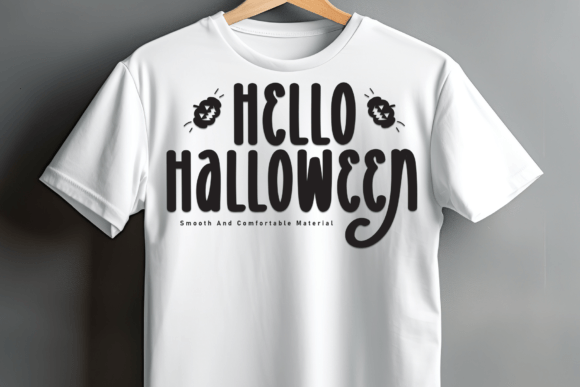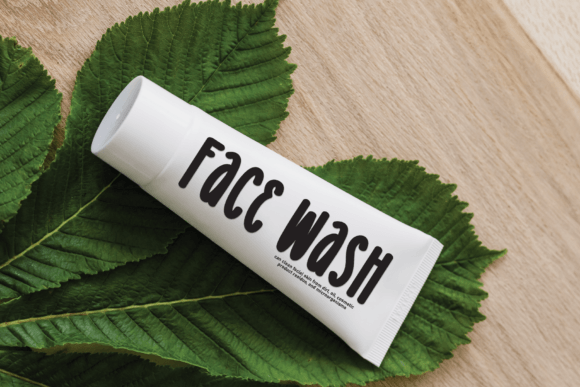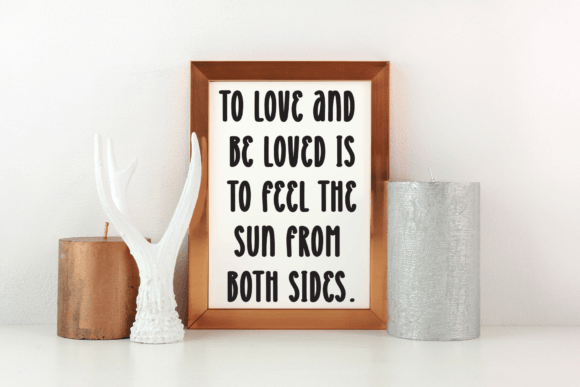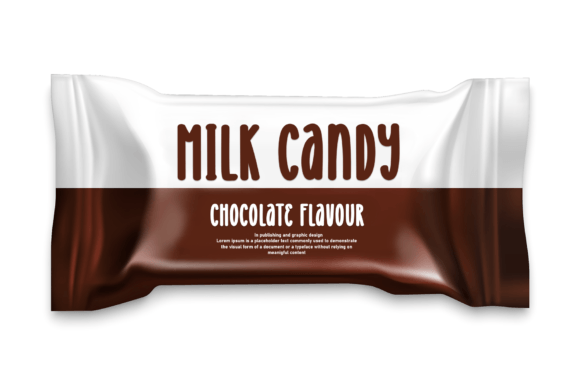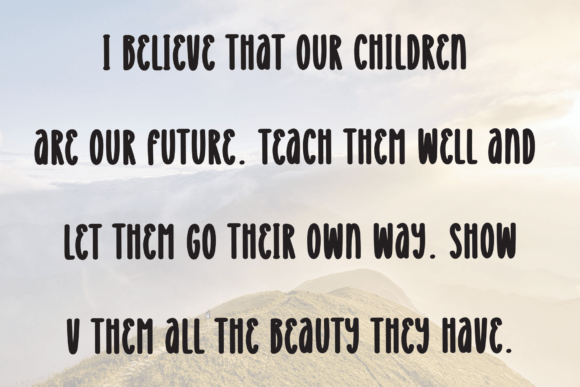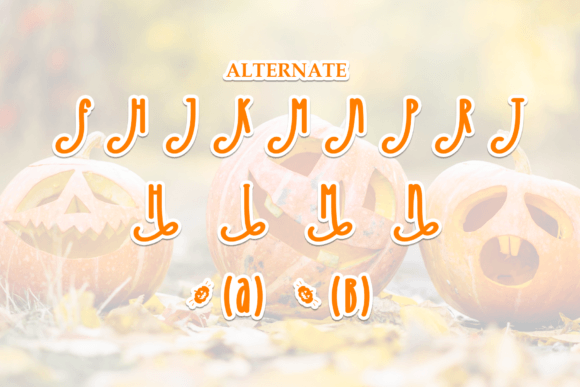
The Perfect Touch for Your Designs
Have you ever sat at your desk, staring at a blank page, trying to come up with the perfect design? The words won’t flow, the ideas won’t come, and you’re left feeling frustrated and stuck. But then, it happens – a spark of inspiration hits, and you know exactly what you want to create. For many designers, that spark is found in the right font, and one font in particular stands out: Blonde Pumpkin Font.
This lovely and timeless handwritten font is more than just a pretty face – it’s a game-changer for logos, branding, and quotes. Every letter has a unique and beautiful touch, which will bring your designs to life. Whether you’re a seasoned pro or just starting out, the Blonde Pumpkin Font is a valuable addition to your design toolkit, helping you to create eye-catching and memorable designs that leave a lasting impression.
Key Features of Blonde Pumpkin Font
- Unique Characteristics: Blonde Pumpkin Font features a unique, hand-drawn design with subtle imperfections, giving it a warm and organic feel.
- Kerning and Ligatures: Blonde Pumpkin Font includes advanced kerning and ligature features, ensuring smooth and professional-looking text.
Designer Review: Blonde Pumpkin Font
I’ve had the chance to work with the Blonde Pumpkin Font, and I must say it’s a unique addition to any design project. Here’s what I think:
- Unique aesthetic: Blonde Pumpkin Font has a distinct, quirky feel that can add character to your designs.
- High-quality glyphs: The font’s glyphs are well-crafted and display well on a variety of devices.
- Good for creative projects: This font is perfect for projects that require a playful, whimsical touch.
- Limited legibility: In some cases, the font’s unique design can make it difficult to read, especially at smaller sizes.
- Not ideal for body text: Due to its playful nature, Blonde Pumpkin Font is better suited for headings and titles rather than large blocks of text.
- May not be suitable for formal projects: The font’s quirky feel may not be suitable for formal or professional projects where a more conservative design is required.
The Blonde Pumpkin Font is a fun and creative addition to any design project. While it may have some limitations, it’s perfect for projects that require a unique and playful touch. I would recommend using it for headings, titles, and other creative elements, but be mindful of its limitations when using it for body text or formal projects.
The Blonde Pumpkin Font is ideal for:
- Party and event decorations
- Summer and outdoor-themed designs